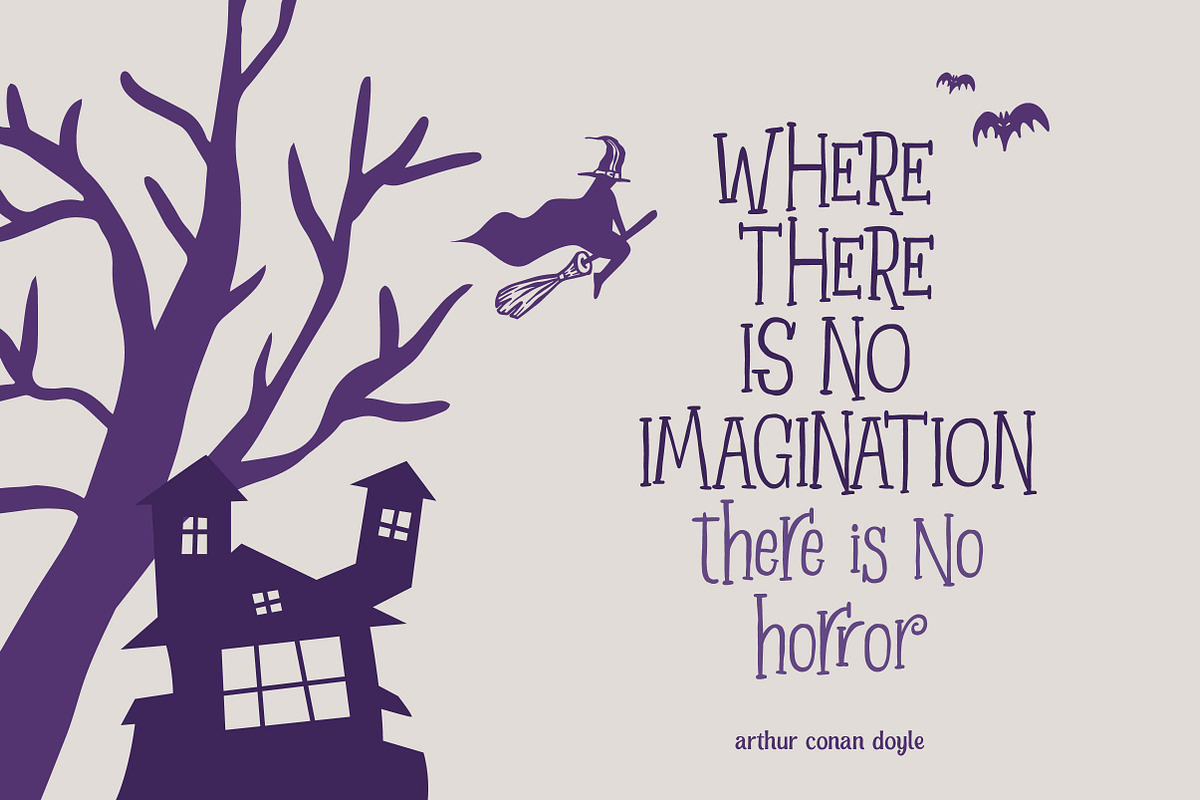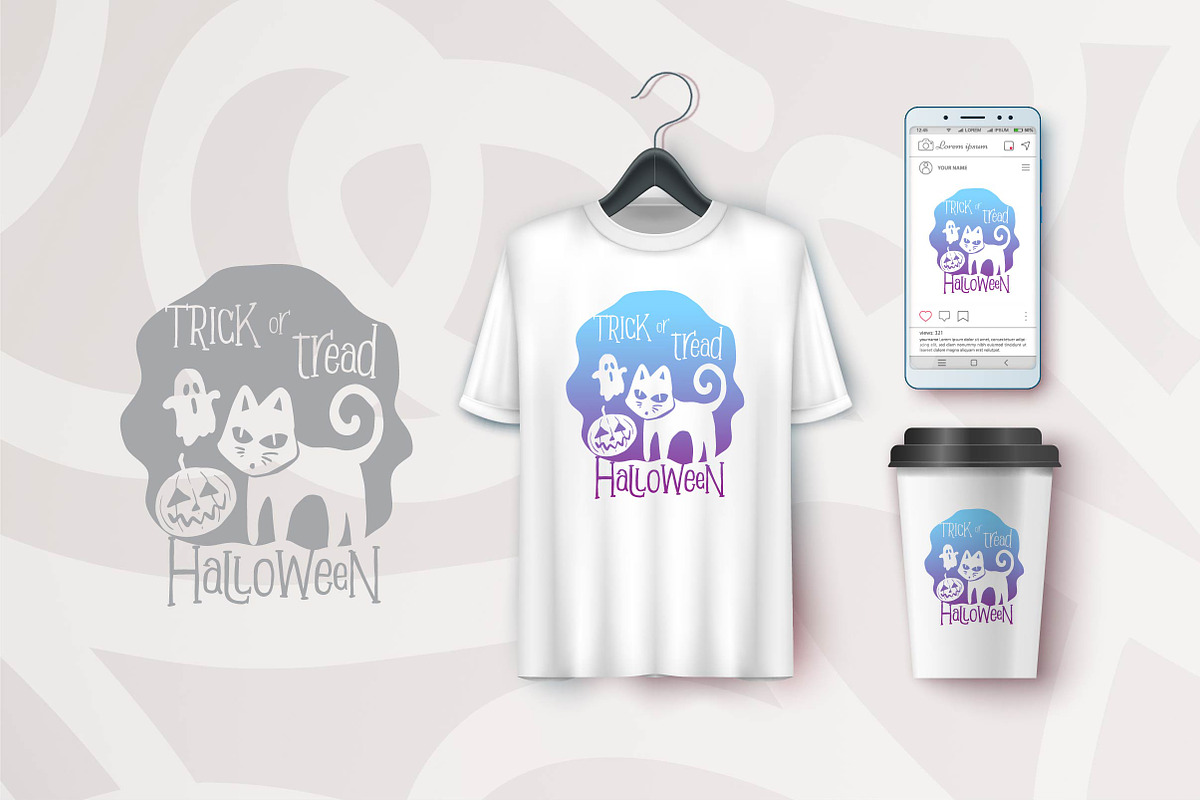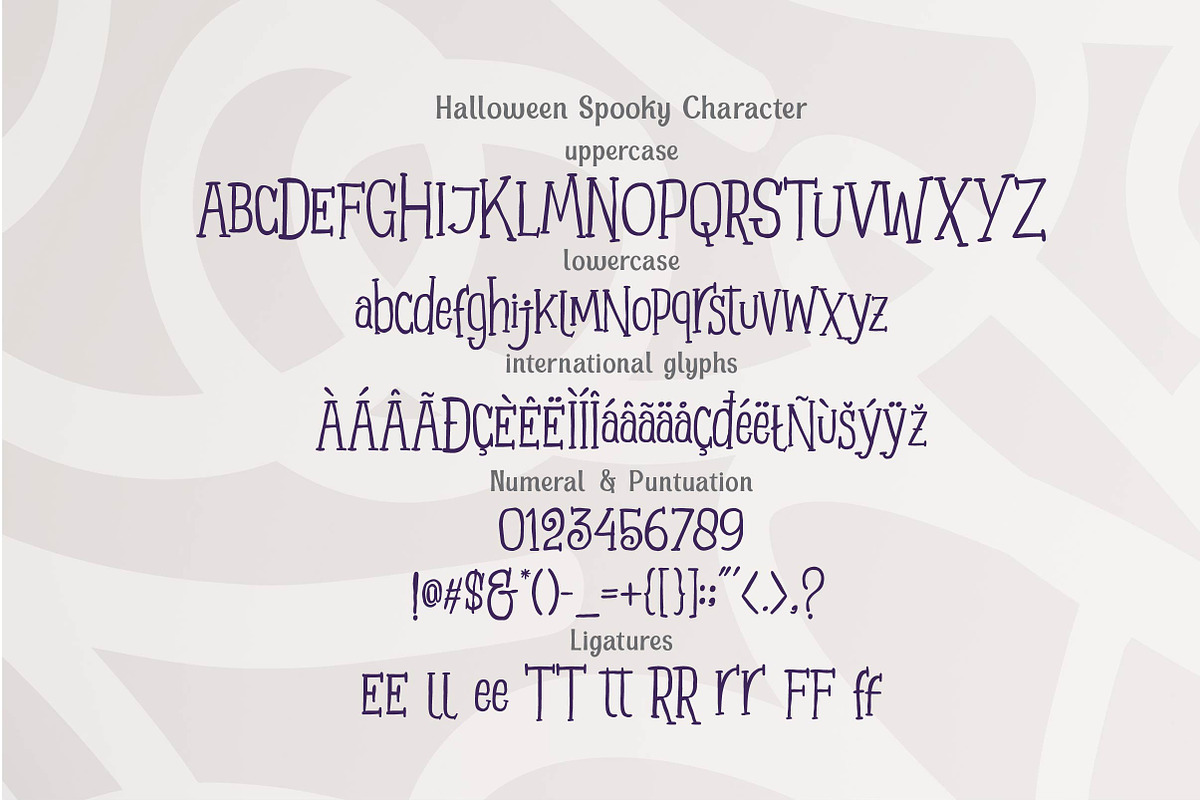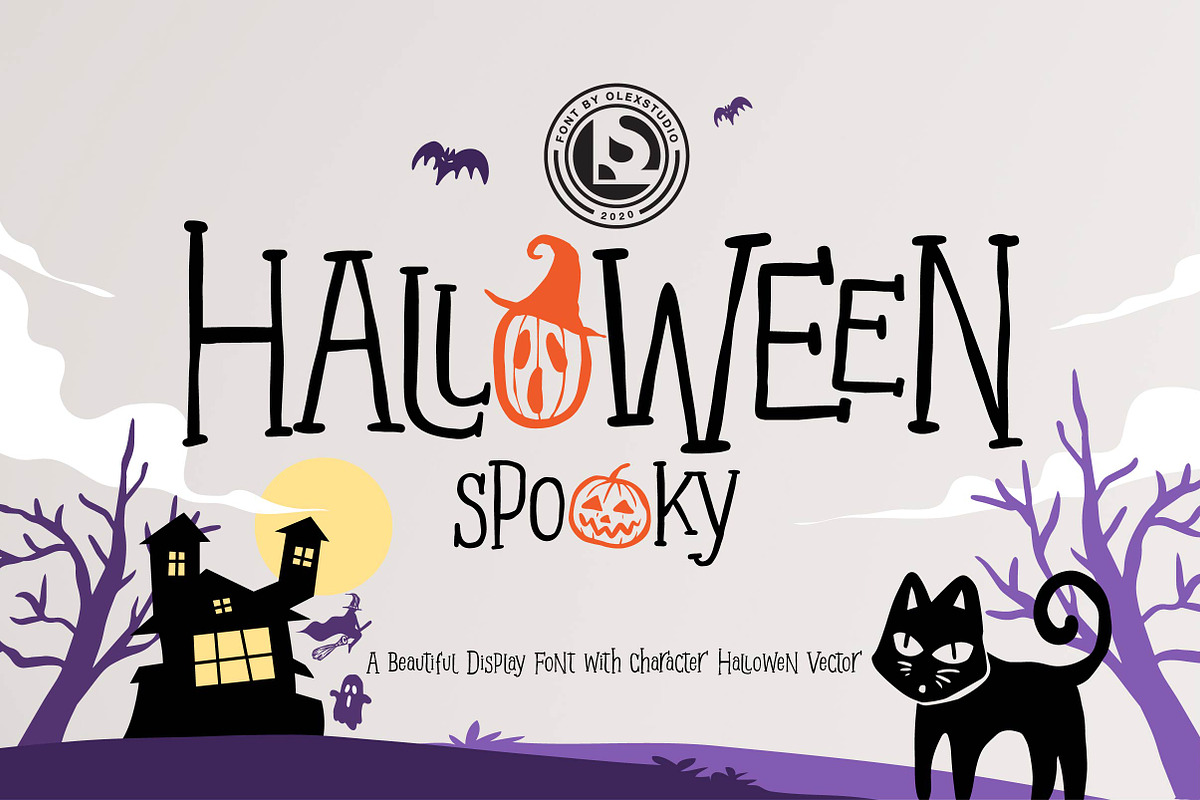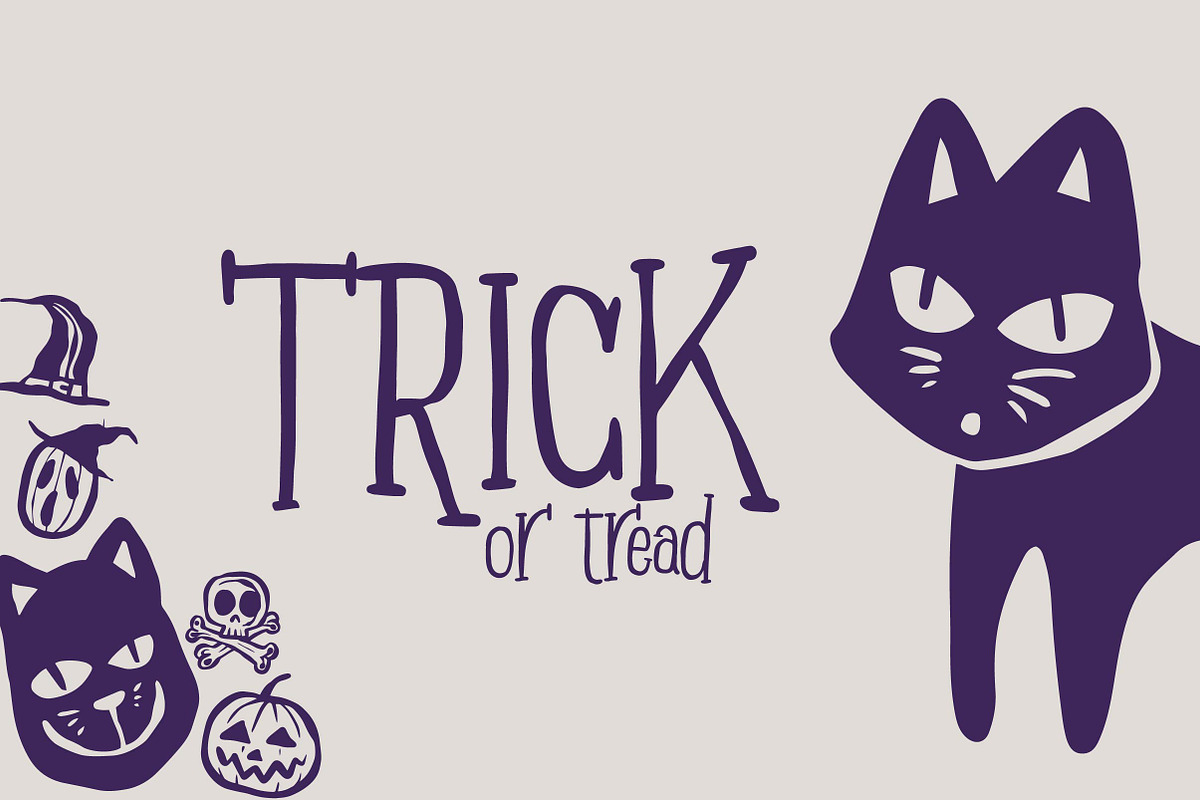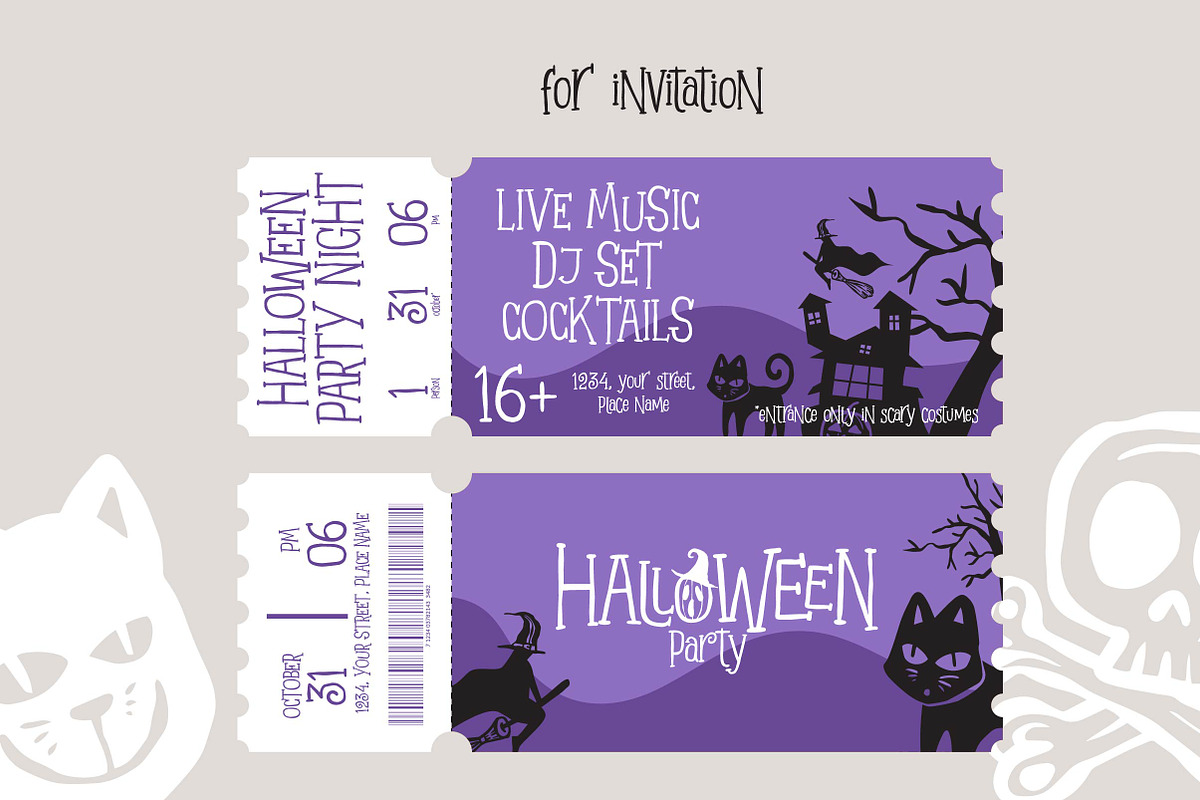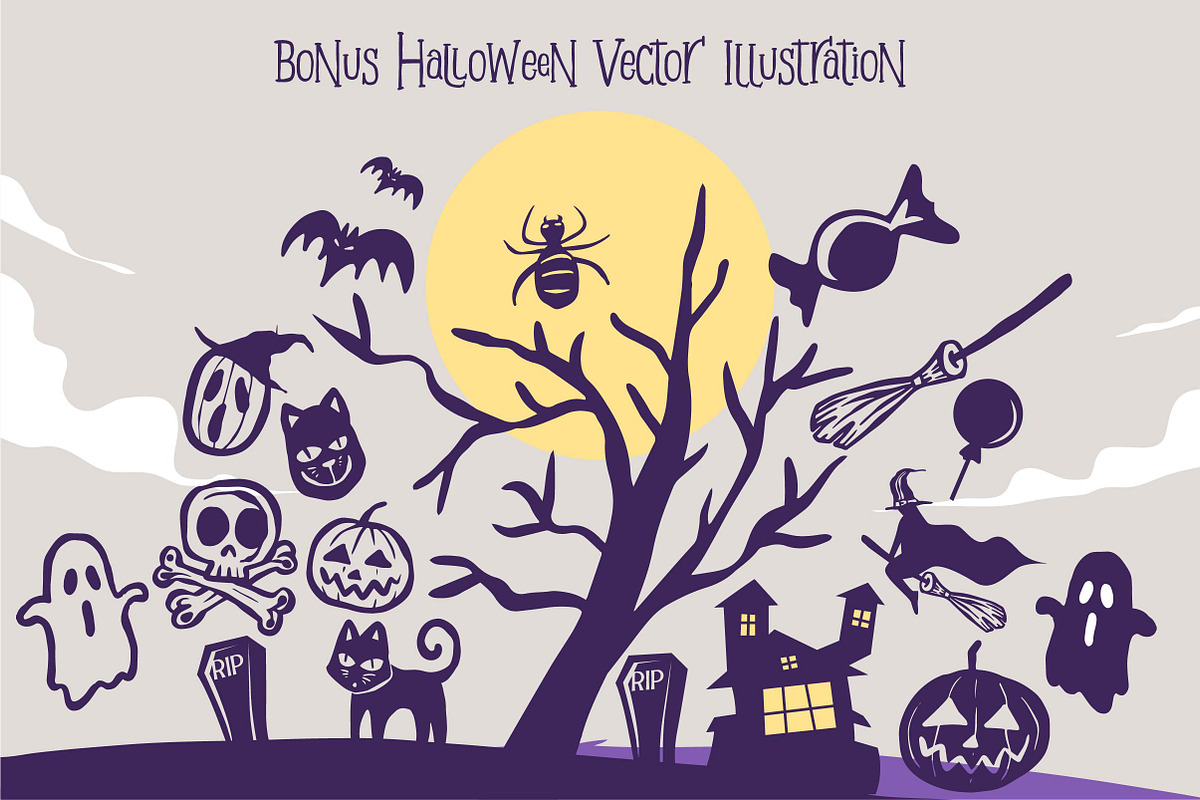
Halloween Spoky - Display
Halloween Spoky - Display Font will look gorgeous on all your designs, invitation, poster design, book design, branding materials, logo's, t-shirt etc.
Halloween Spoky - Display contains standard characters, Lowercase, Uppercase, numbers, punctuation, ligatures and international glyphs. You will receive OTF, TTF files & WEBFONT.